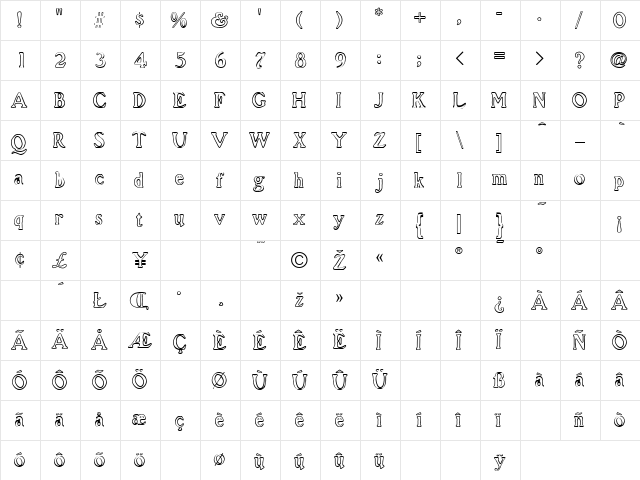
Complete BenFranklinOpen Regular glyph index. Displaying only characters natively supported by BenFranklinOpen Regular font.
BenFranklinOpen is a composed and adaptable typeface that performs quietly and consistently across a wide range of design contexts.